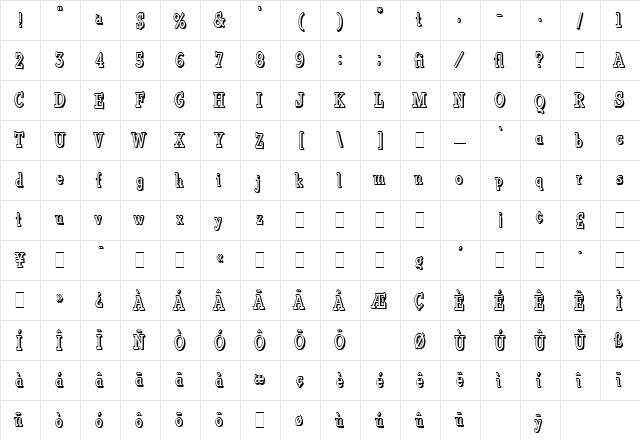
Vermont LET Plain
Design Context for Vermont LET Typeface
Vermont LET is a composed and adaptable typeface that performs quietly and consistently across a wide range of design contexts.